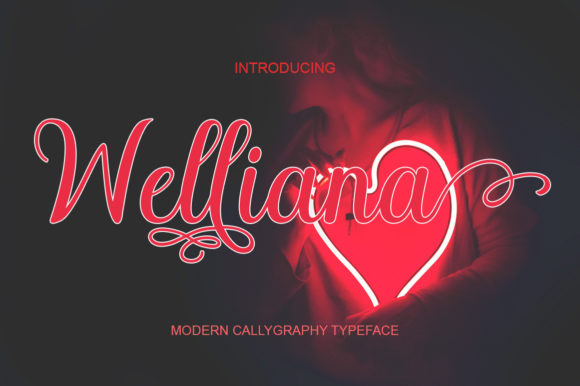
About Welliana Font
Welliana is a modern script font carefully created with a touch of elegance. This is a beautiful combination of timeless elegance and authentic calligraphy. This font is PUA encoded which means you can access all of the wonderful glyphs and swashes with ease!